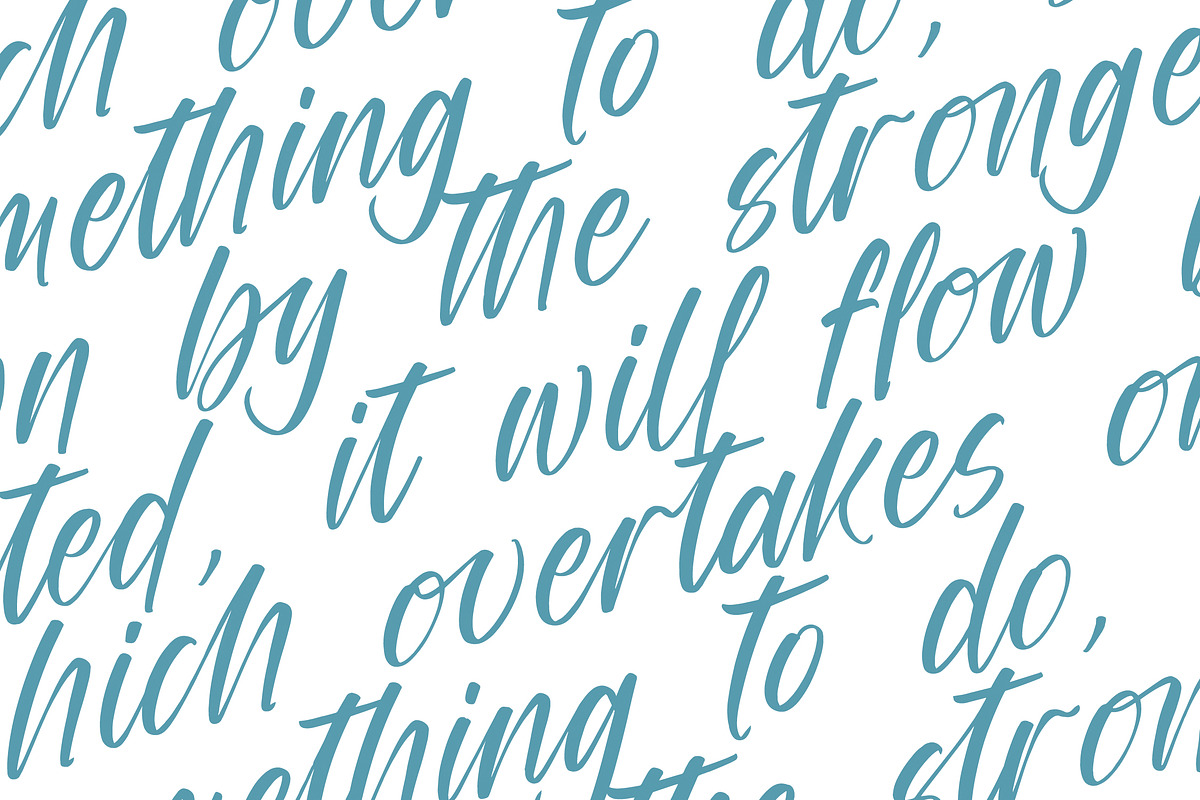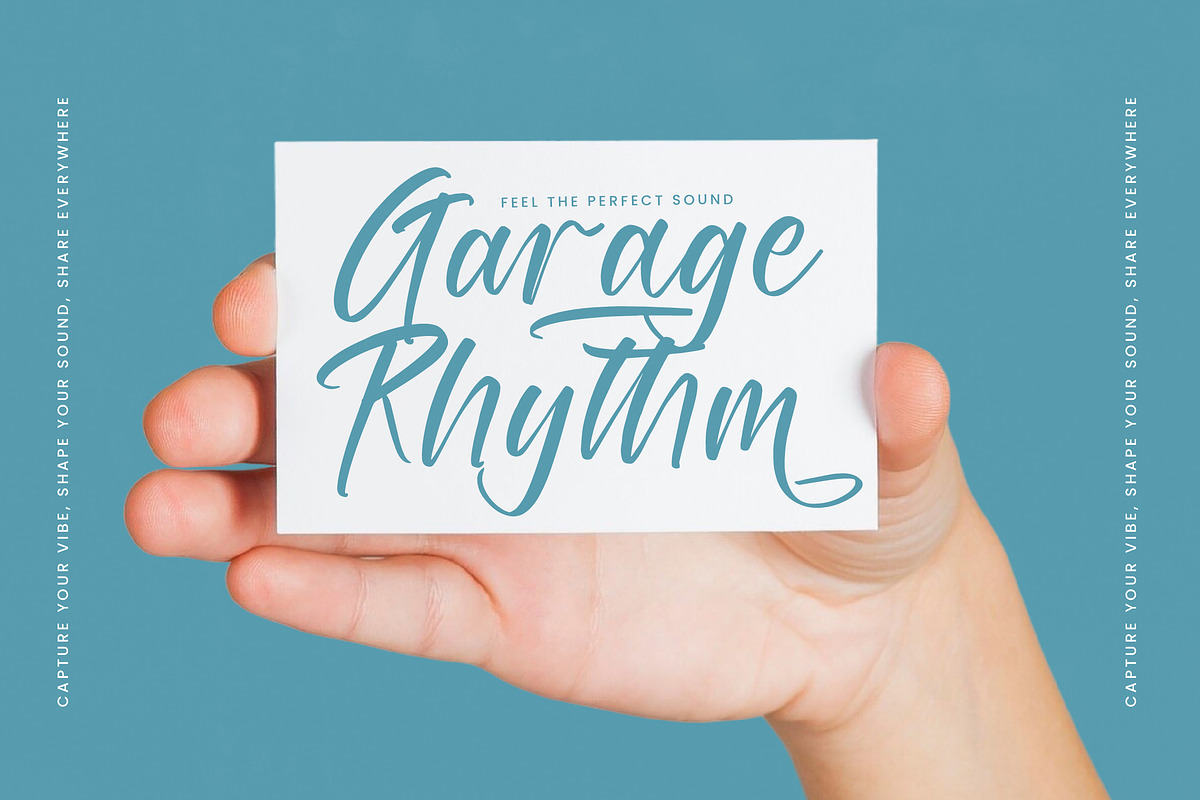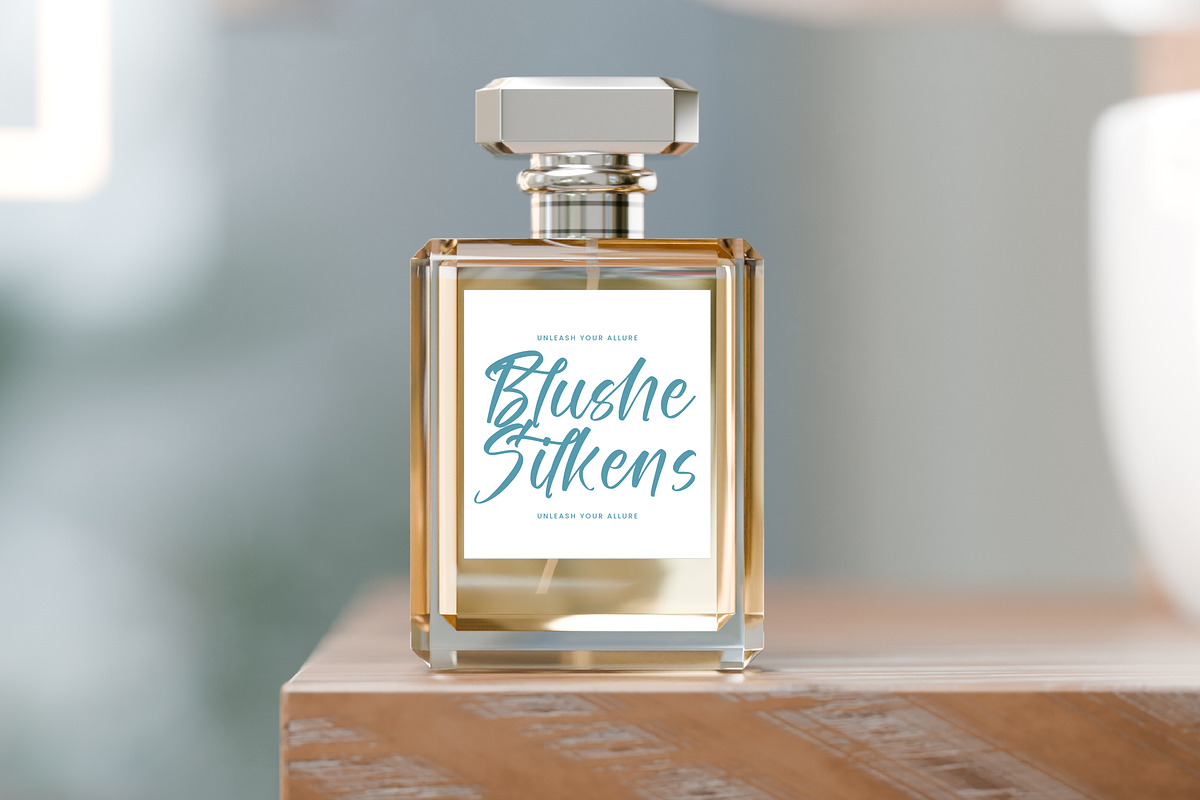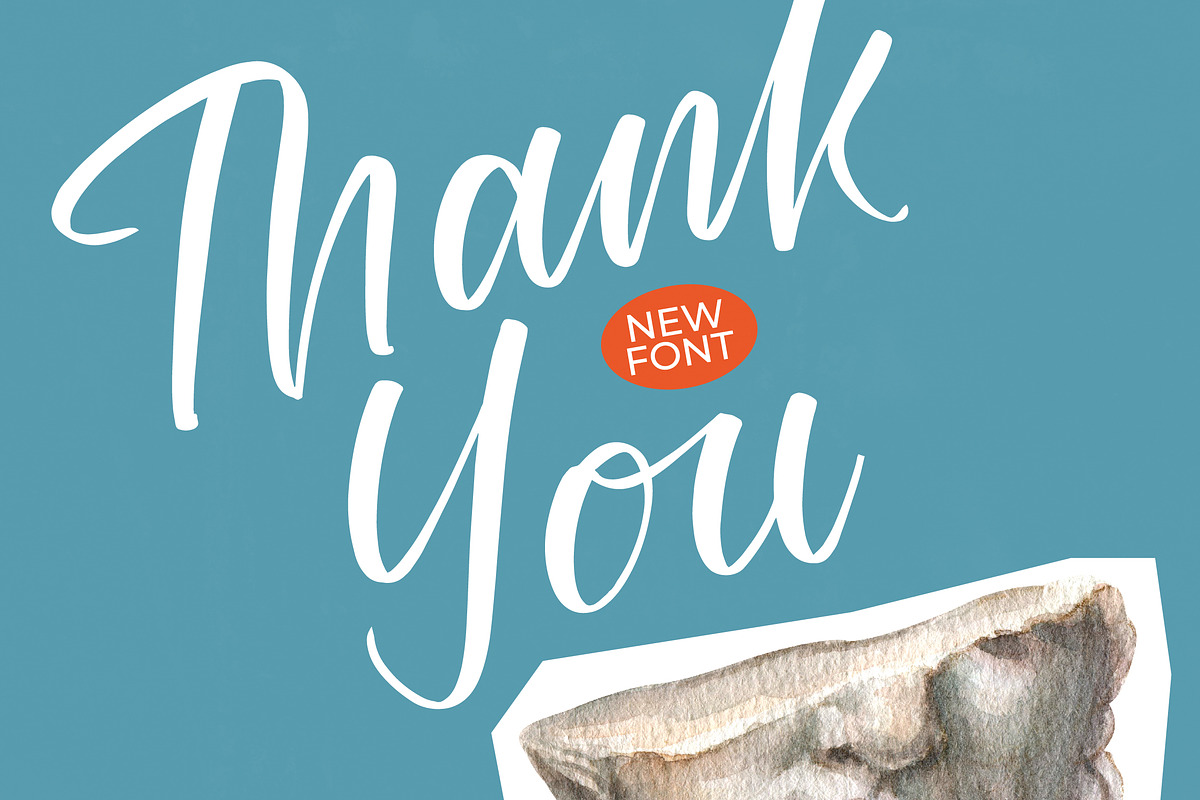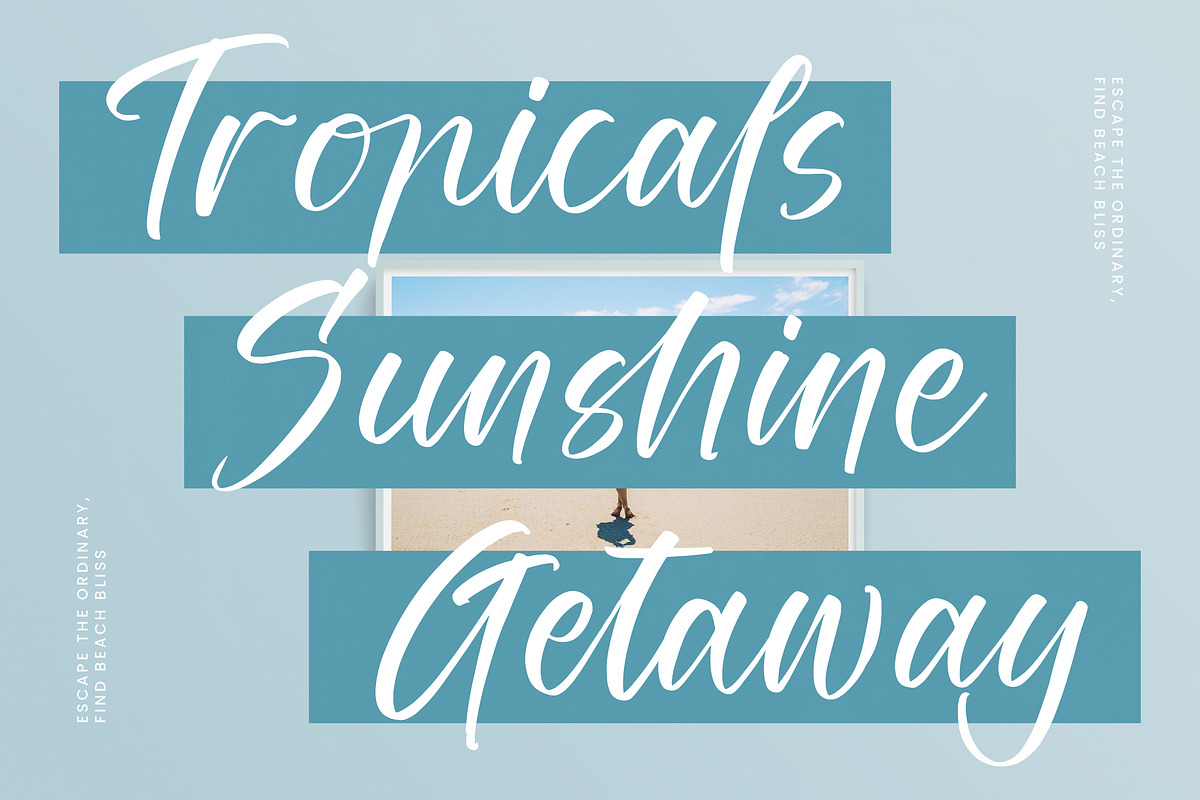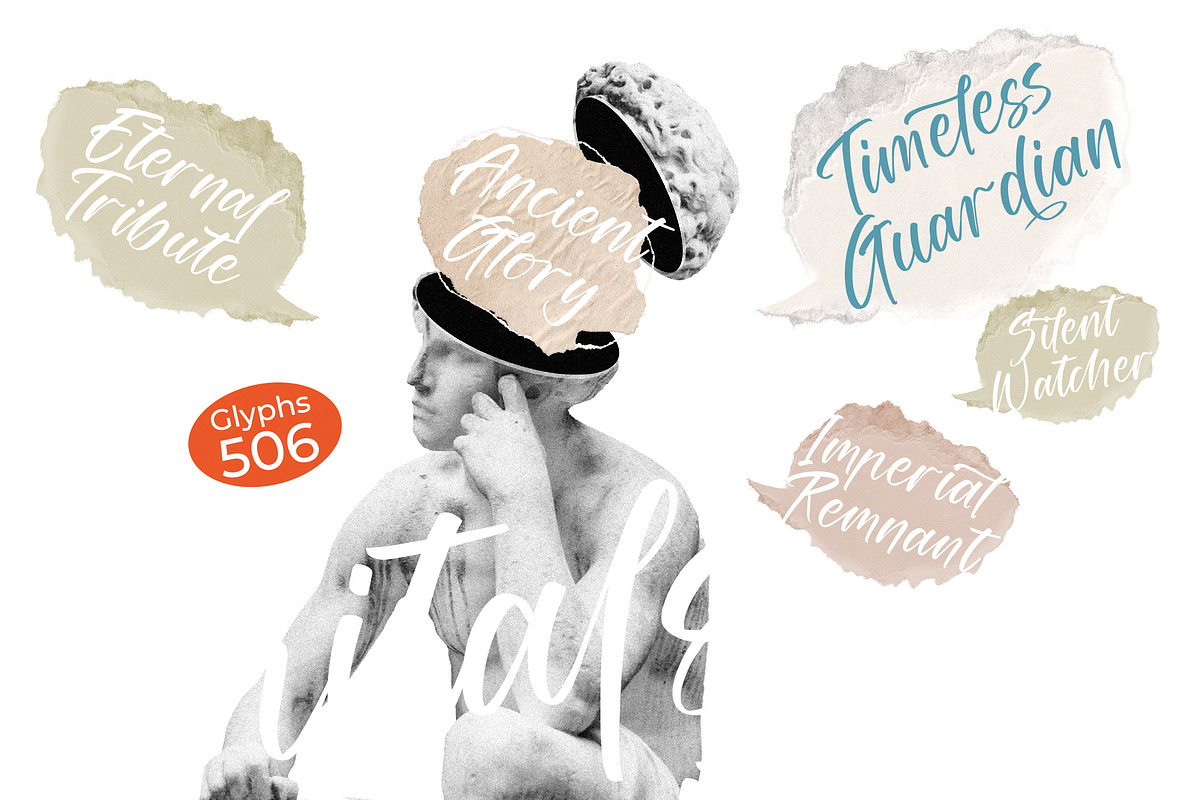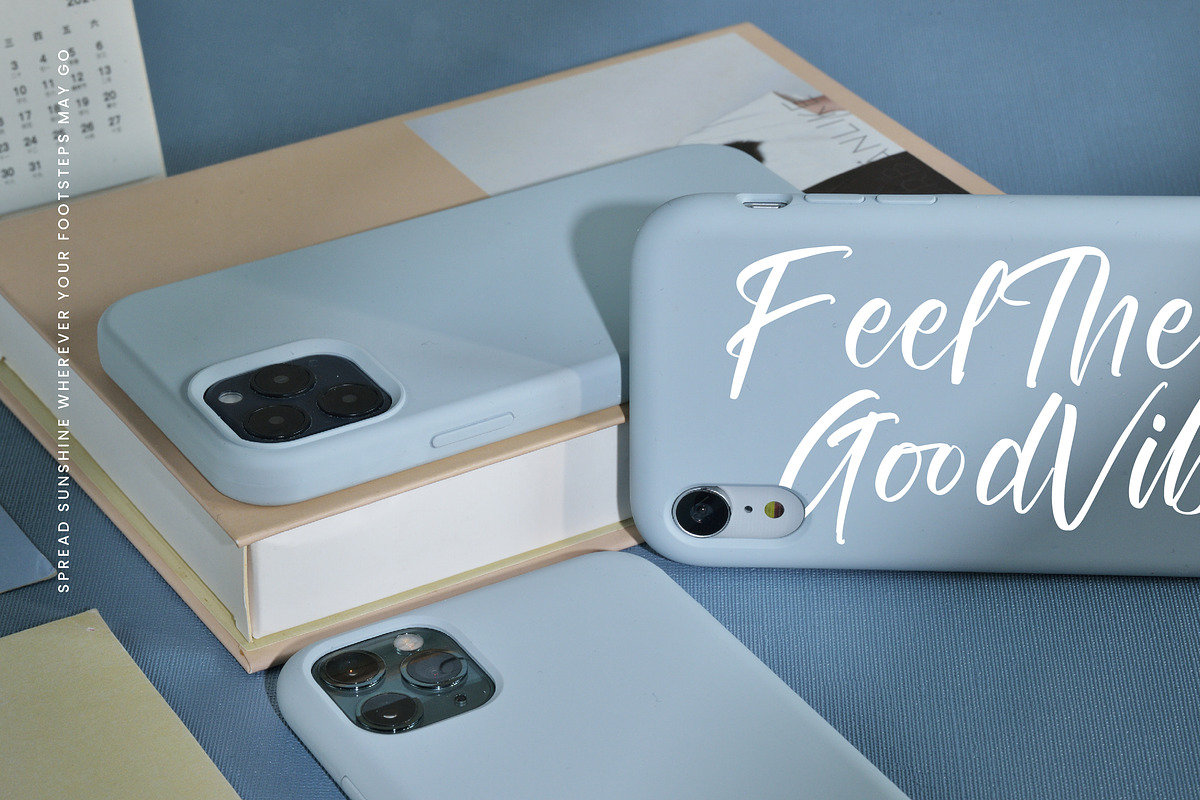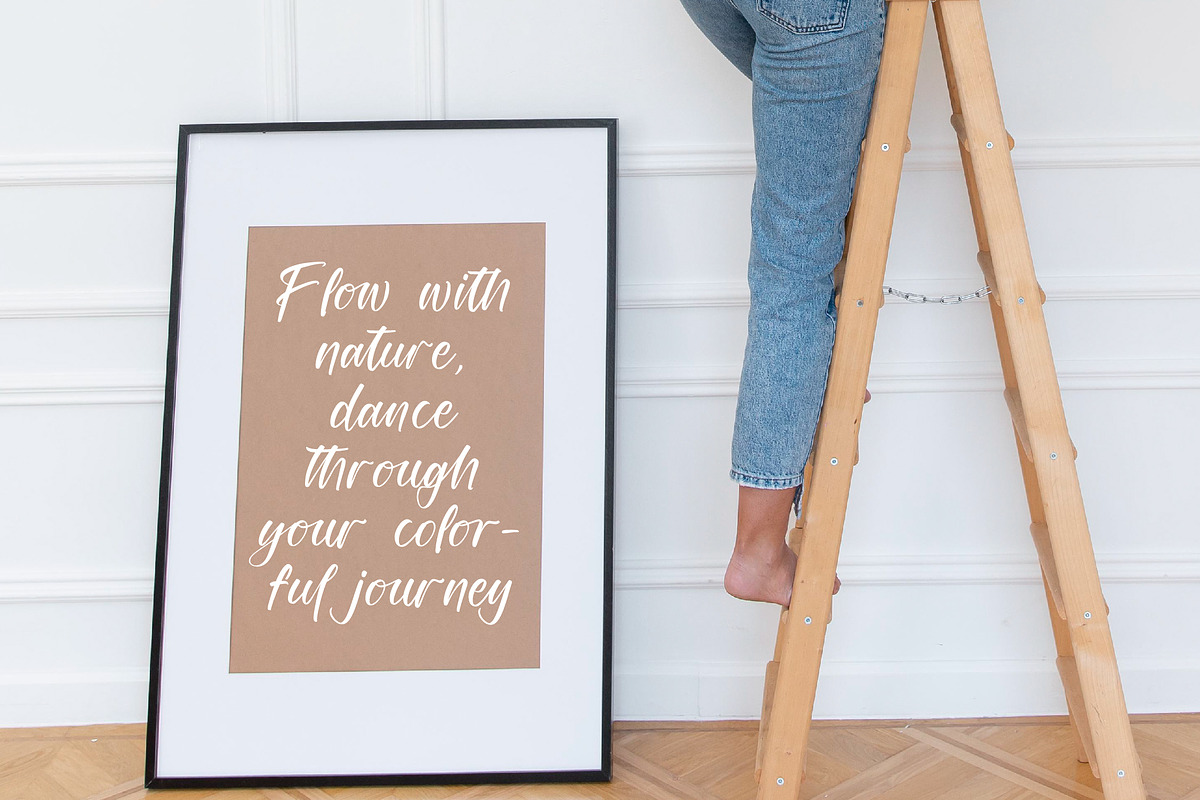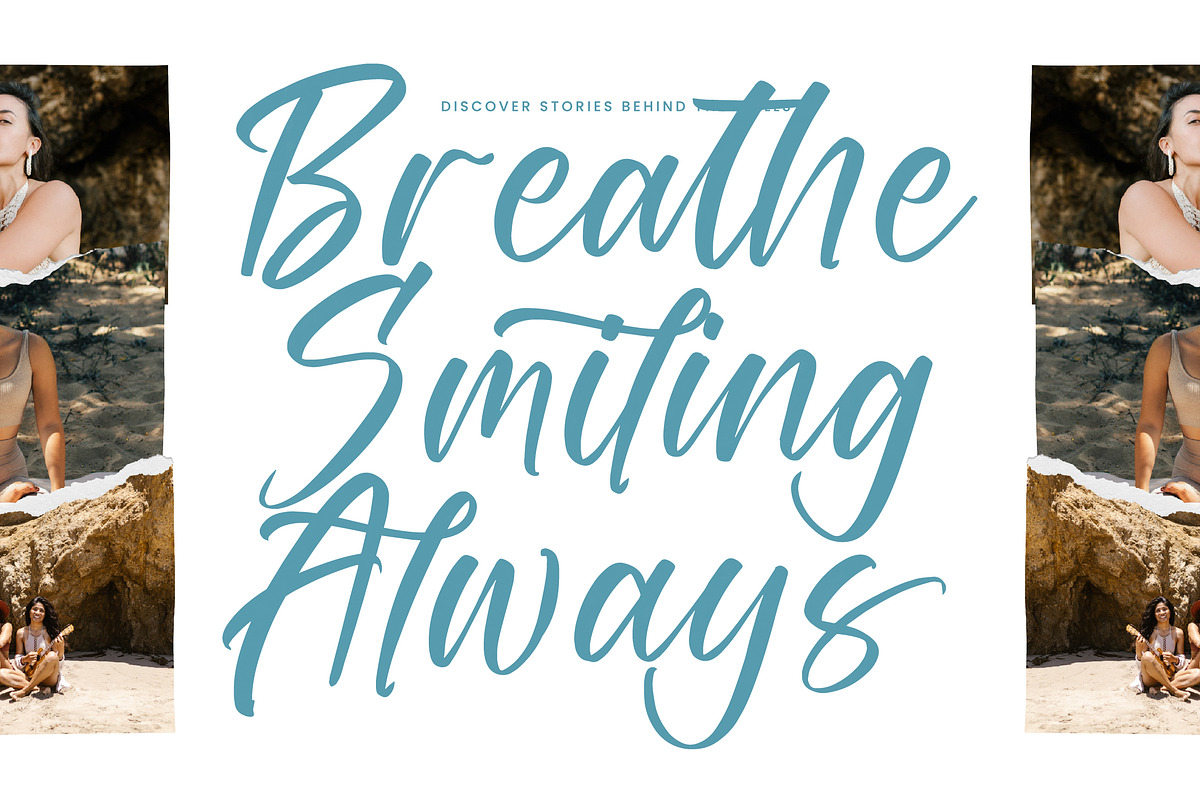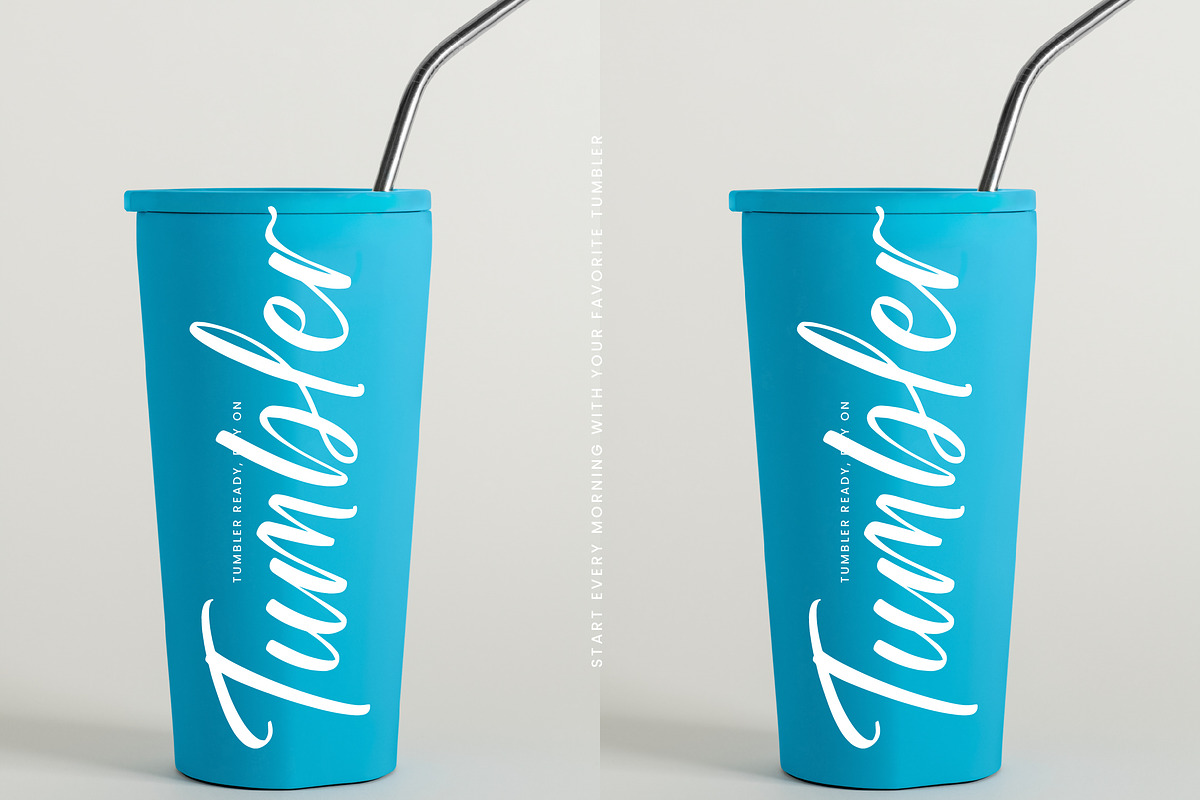
Capitals Highland New Handwritten
Capitals Highland - New Handwritten Script , from Stylishtype.Co , Suitable for any projects such as: logos, branding projects, homeware designs, product packaging, mugs, quotes, posters, shopping bags, t-shirts, book covers, name card, invitation cards, greeting cards, label, photography, watermark, special events, and all your other luxury and beautiful projects that need a Luxury Script taste.
- 148 Ligature 26 Alternates & Swashes